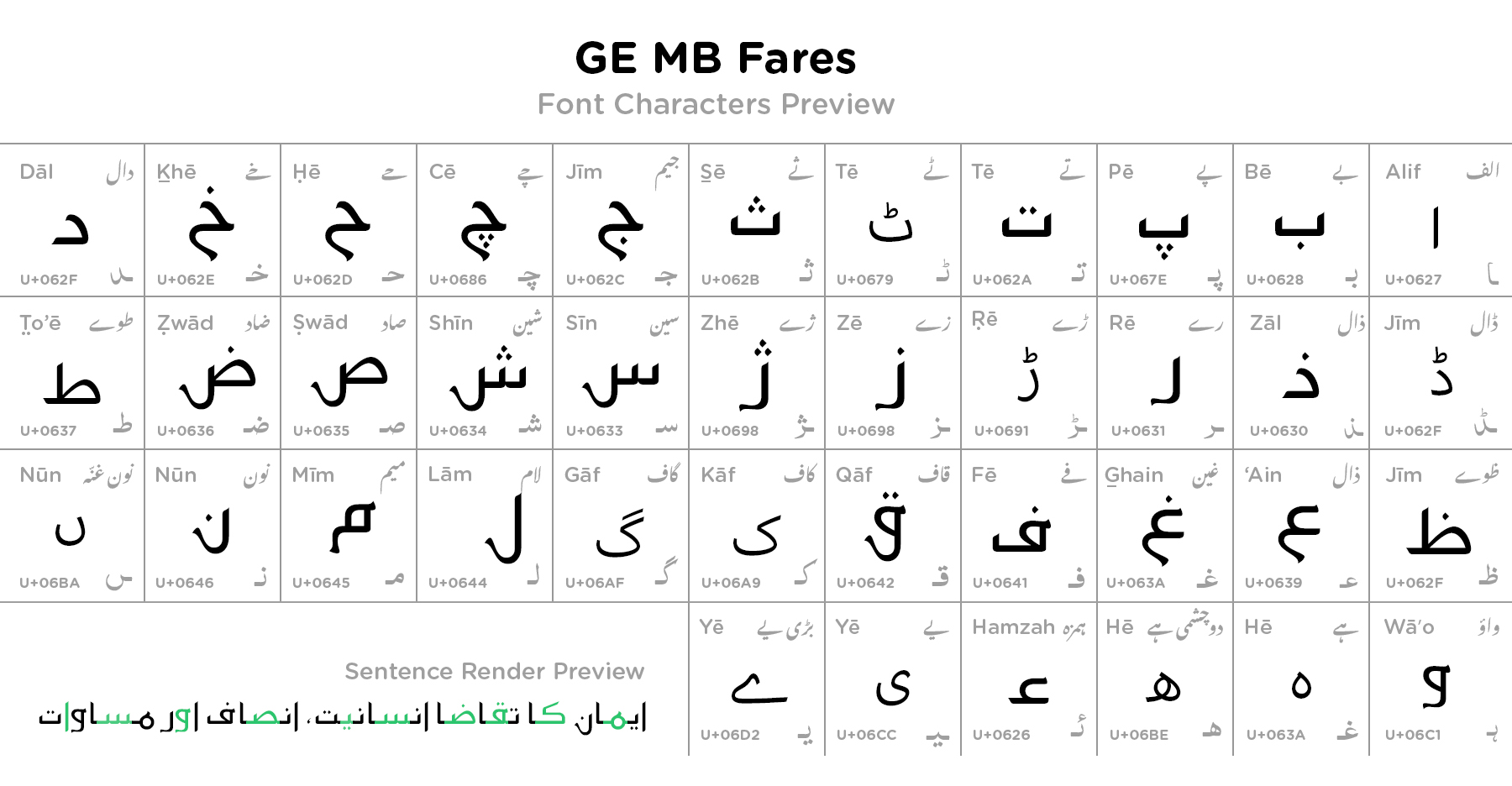
GE MB Fares is a TrueType Arabic font based on the Kufic script with traces of Naskh script and designed by the Boutros International type foundry which specializes in Arabic calligraphy and typography. It was licensed and released in February 2017. It is a geometric font with a modern and clean appearance. Compatible with a variety of modern Unicode standards, it has a character set of 296 comprising letters and symbols with a generous glyph count of 248. Its supporting languages include Arabic and Latin with partial support for Urdu, Persian, Greek, and more. This multipurpose font comes in 3 different styles catering to different design requirements. They are as follows: